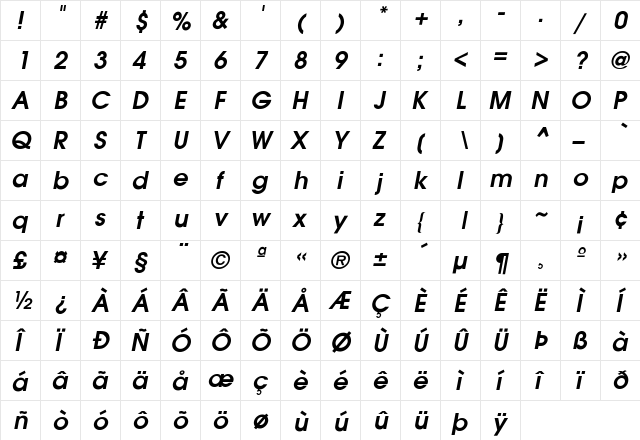
Noveau Riche-DemiObliq Regular
Design Context for Noveau Riche-DemiObliq Typeface
Noveau Riche-DemiObliq offers clean, dependable letterforms without strong stylistic allegiance, making it a practical choice for designers who need flexibility.
Pro Tip: Use Noveau Riche-DemiObliq in both headline and body roles to test its range before committing to a single application.